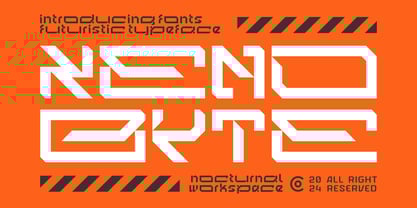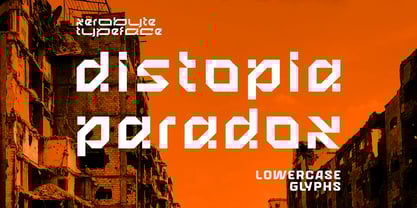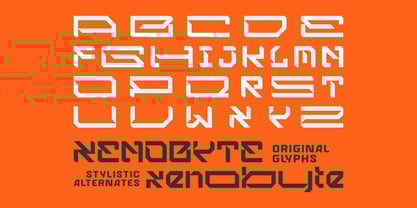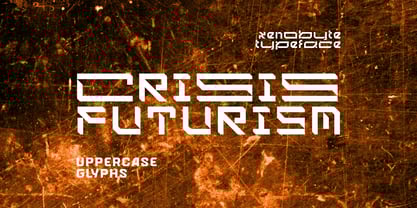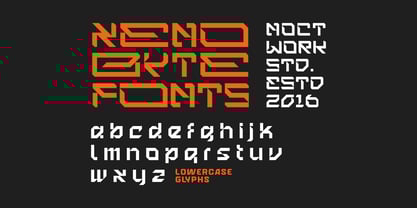
Xeno Byte
by Nocturnal Workspace
The Xeno Byte Font Family was designed by Farhan Tirta, Farhan Sudibya and published by Nocturnal Workspace. Xeno Byte contains 1 styles.
Xeno Byte is a futuristic font that offers a modern and sophisticated aesthetic, influenced by high technology and digital elements. With clean lines, bold geometric shapes, and neon accents, this font brings a futuristic touch to any design project. Xeno Byte is designed for various creative applications, including poster design, branding, website headlines, and marketing materials, all requiring a striking and innovative appearance.
This font includes a variety of characters, including uppercase, lowercase, numbers, and symbols, all meticulously designed to create an innovative and digital impression. Additional cyber elements such as light lines and electronic patterns add a high-tech and futuristic feel to this font.
The main advantage of using Xeno Byte is its ability to present a modern and futuristic aesthetic that can capture the audience's attention and make a strong impression. By using Xeno Byte, you can enhance your brand identity and elevate your visual elements to the next level in the digital era.